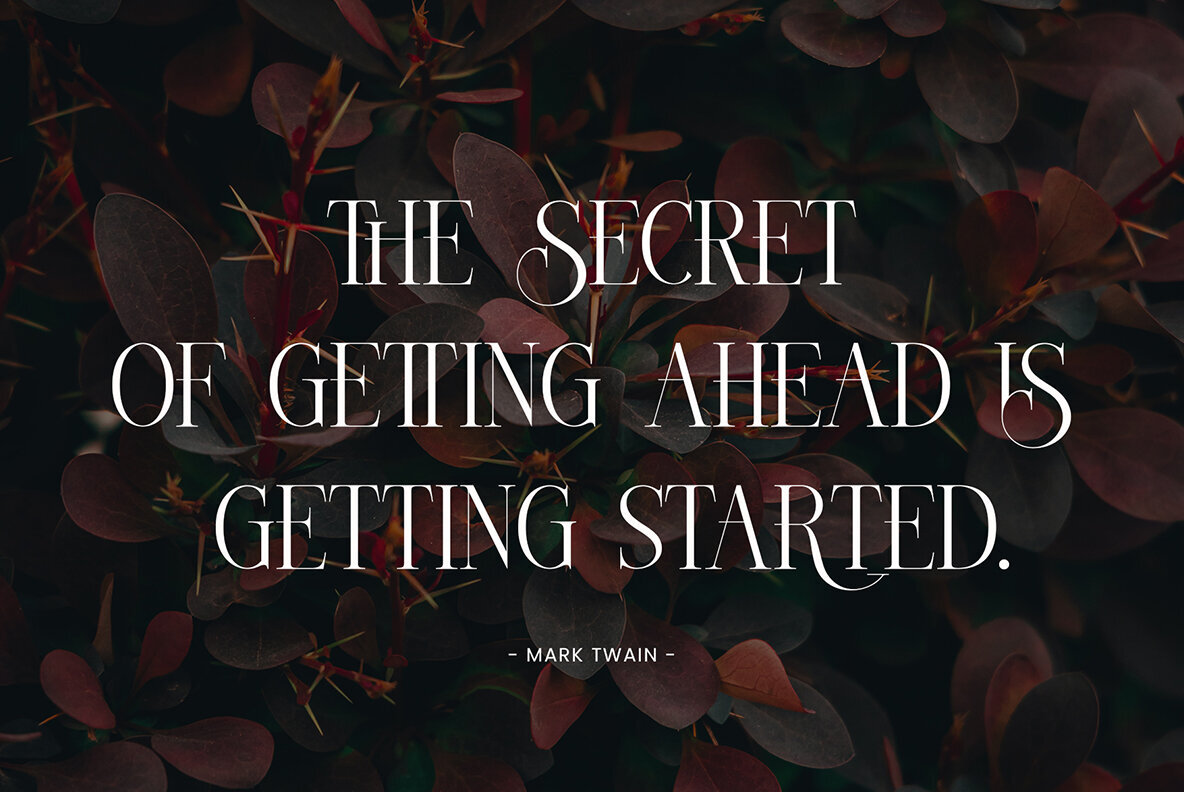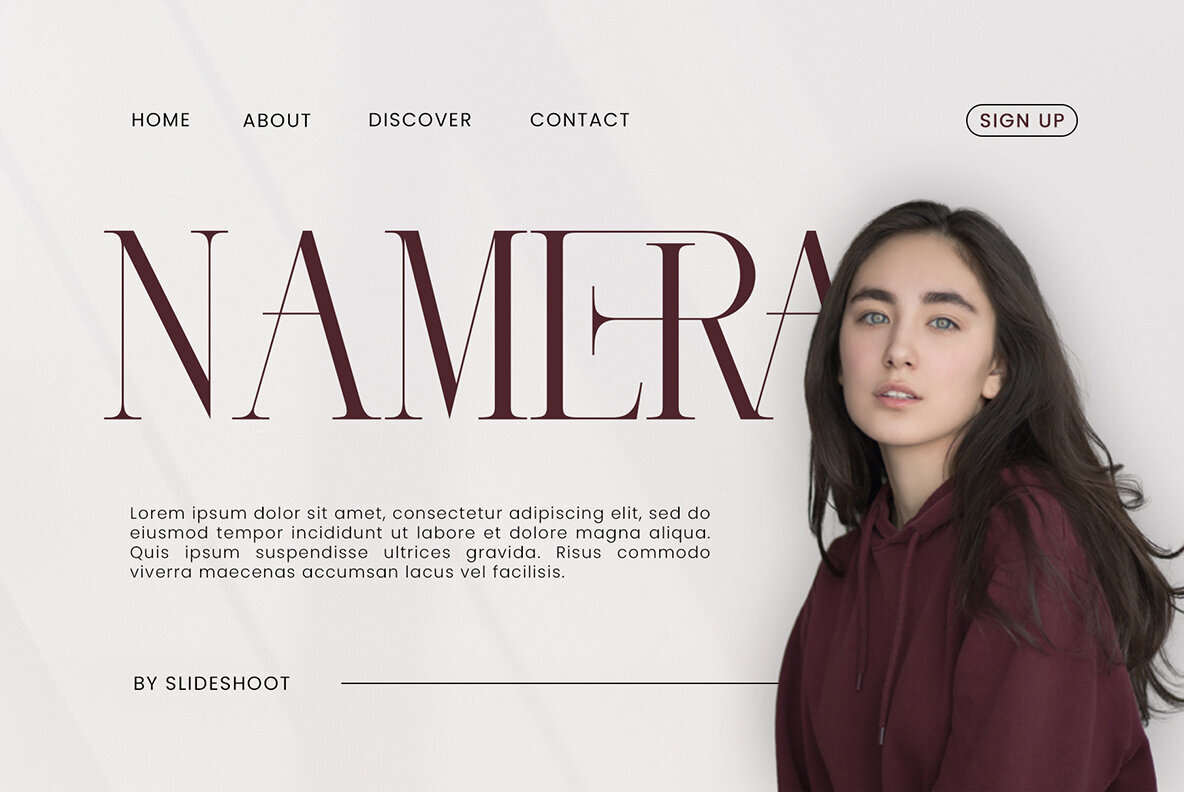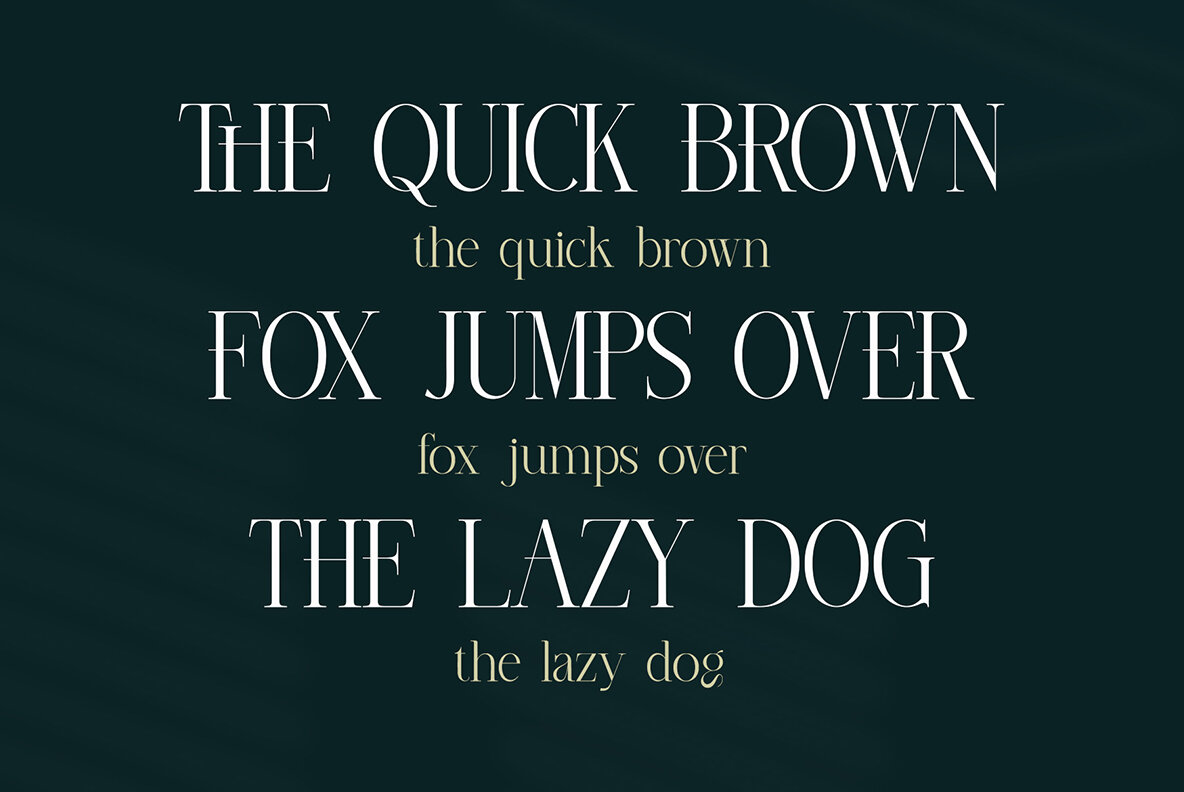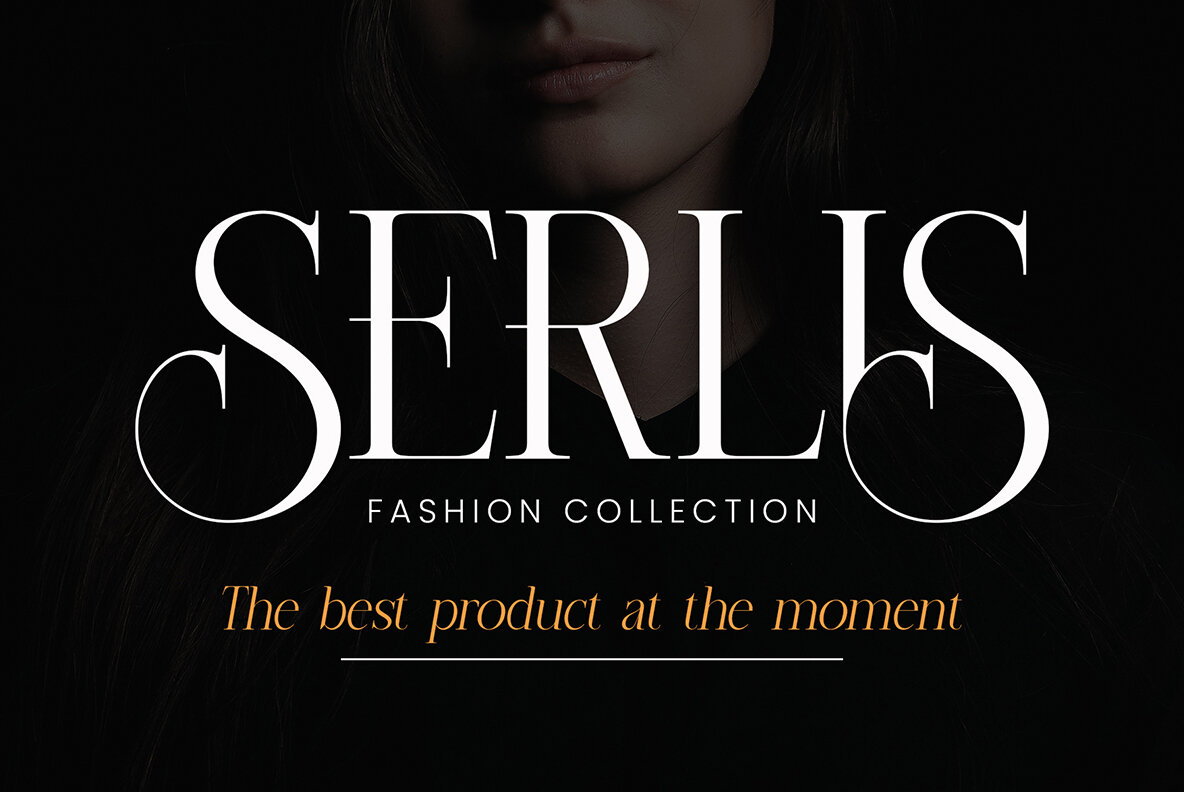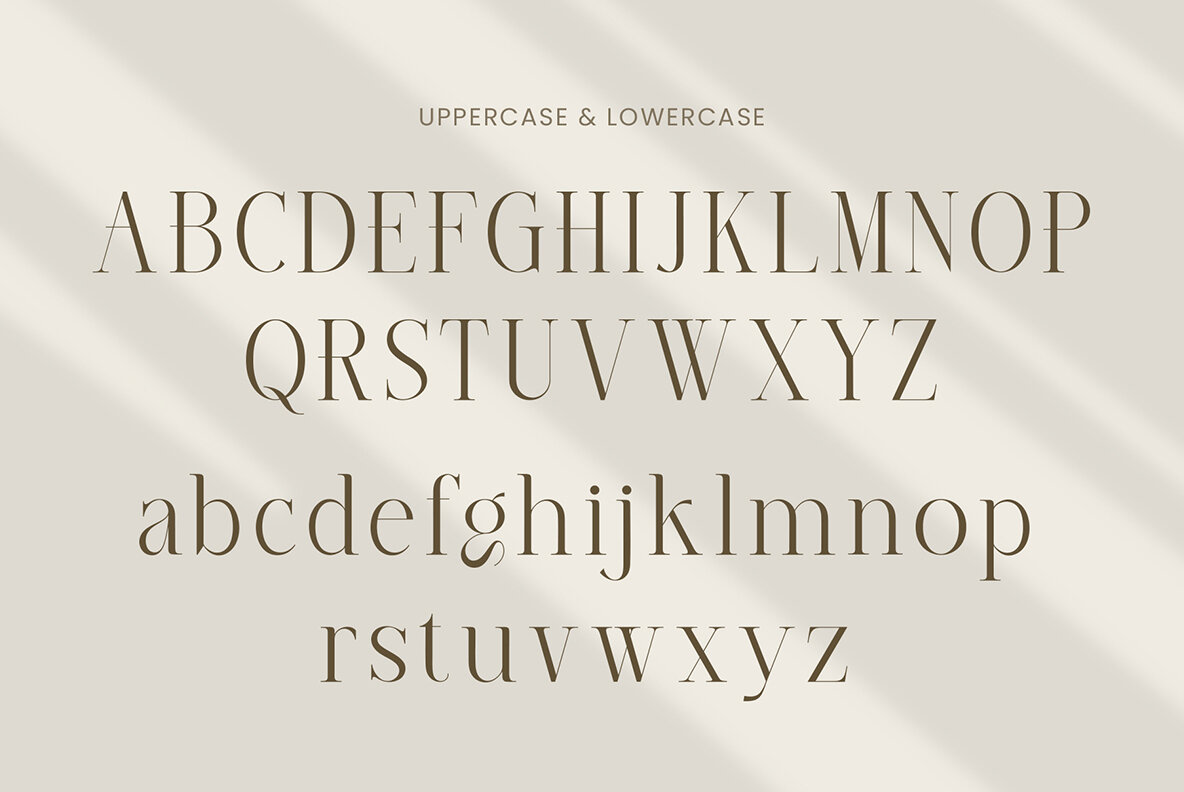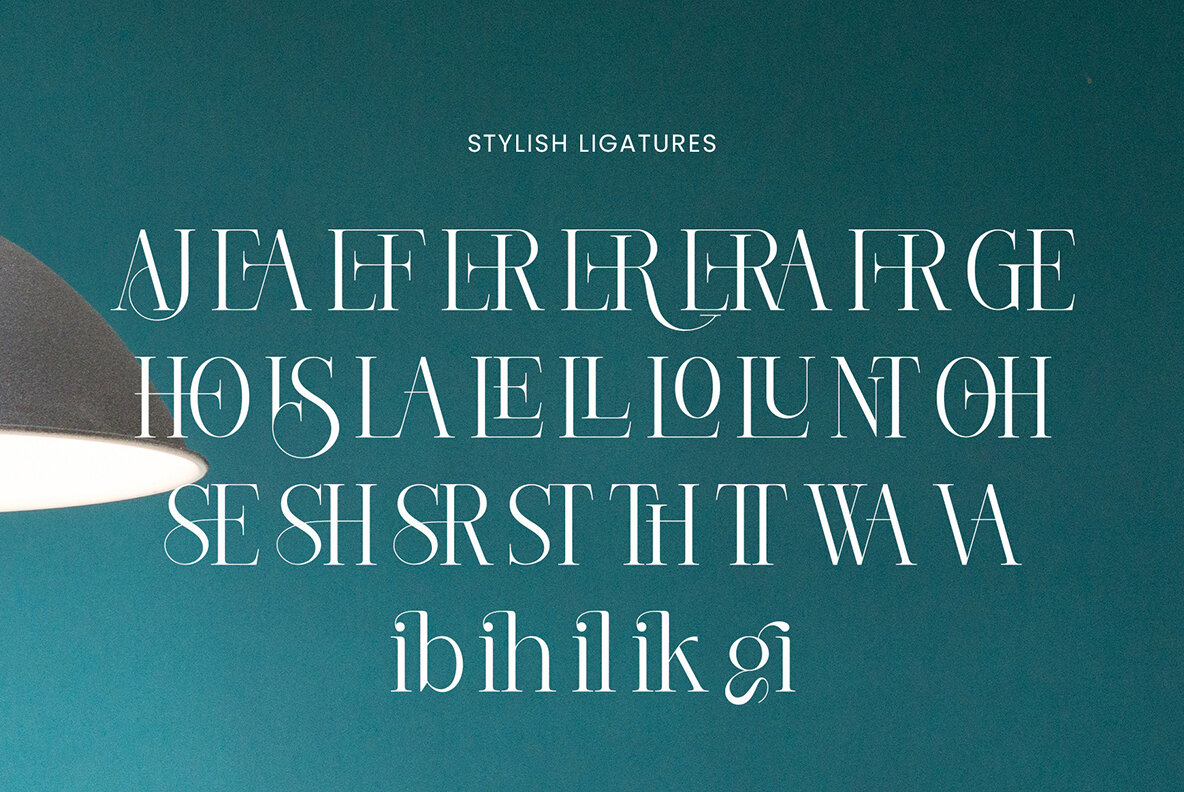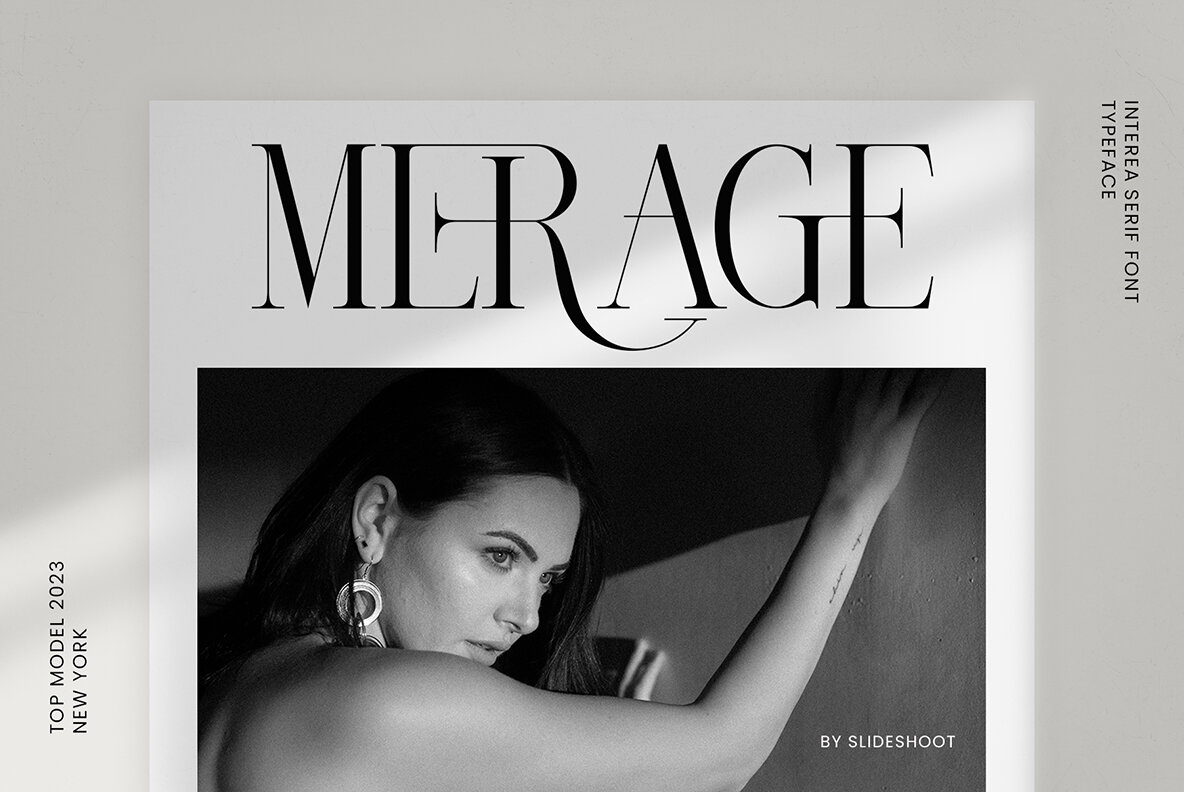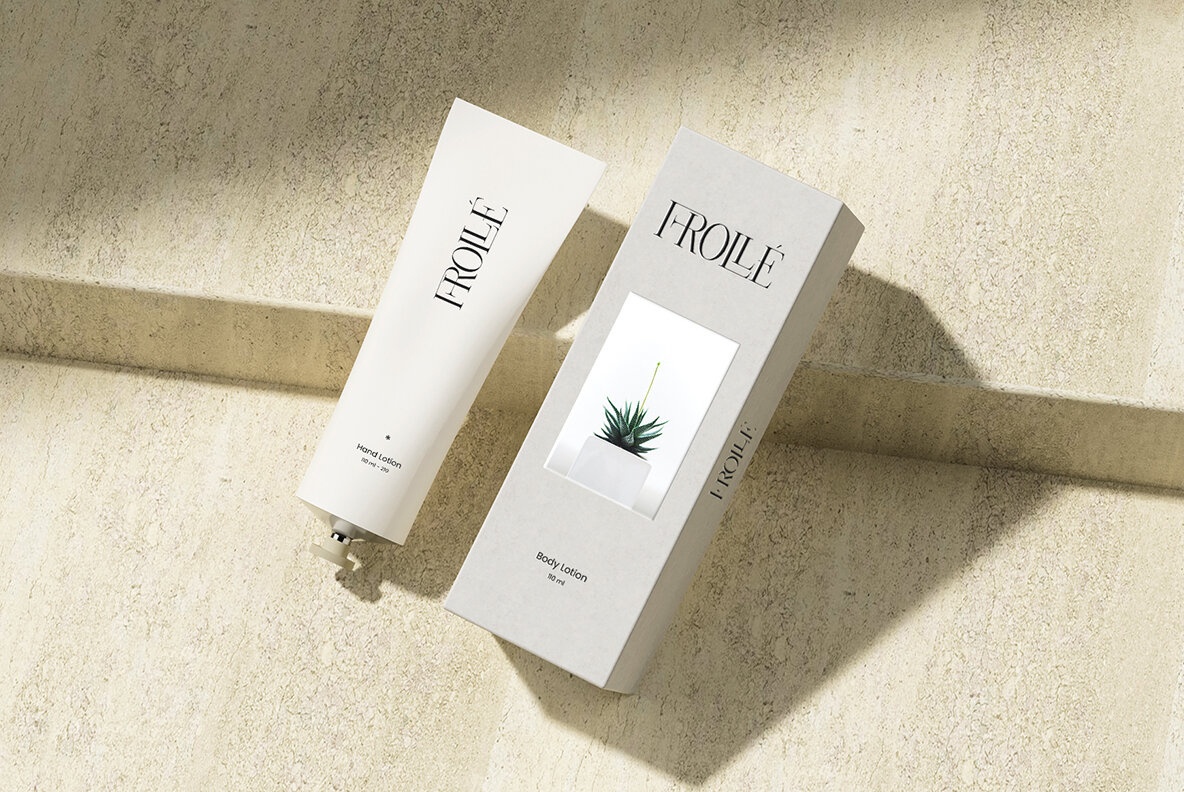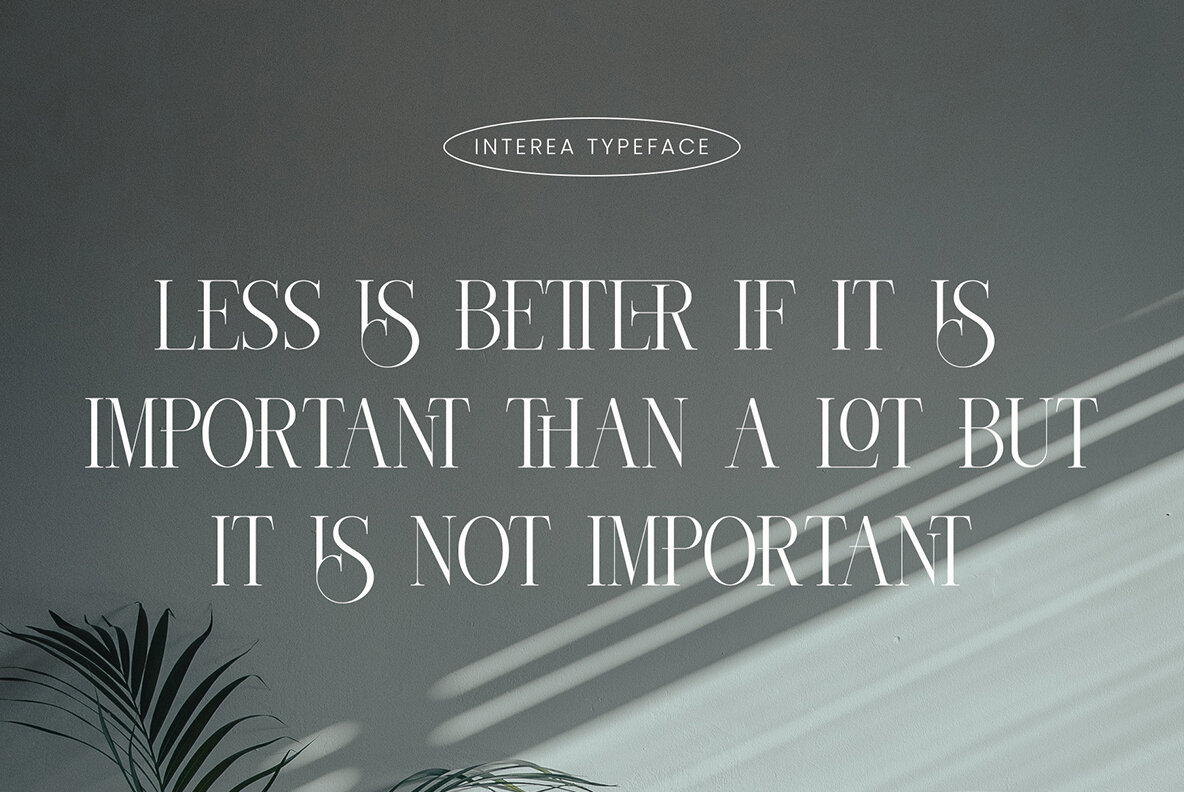
Interea Font
Interea
Interea Serif is a balanced and stylish font that exudes elegance and sophistication. Its smooth and elegant design makes it an ideal choice for various applications, from invitation cards and company logos to movie titles and book covers. Interea Serif seamlessly blends classic and modern design elements, making it perfect for diverse creative projects.Interea Serif: Sophisticated Elegance for Versatile Design